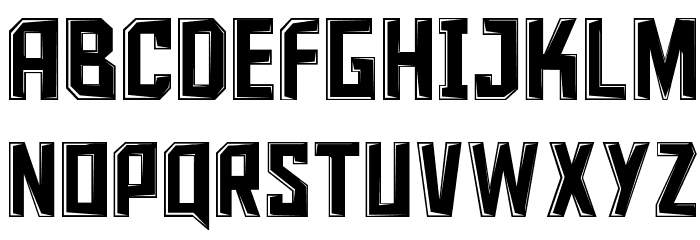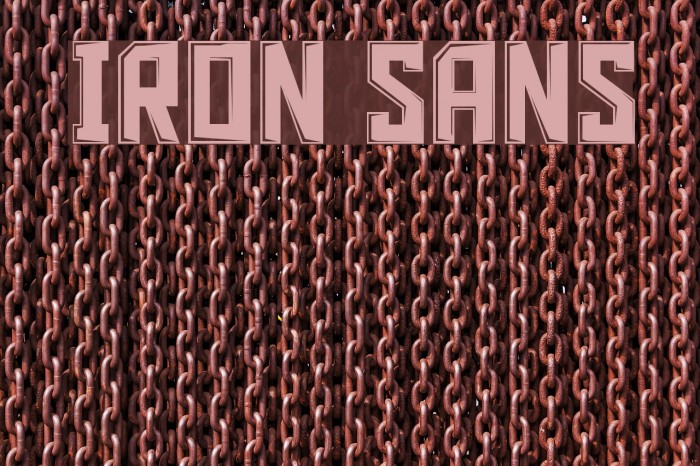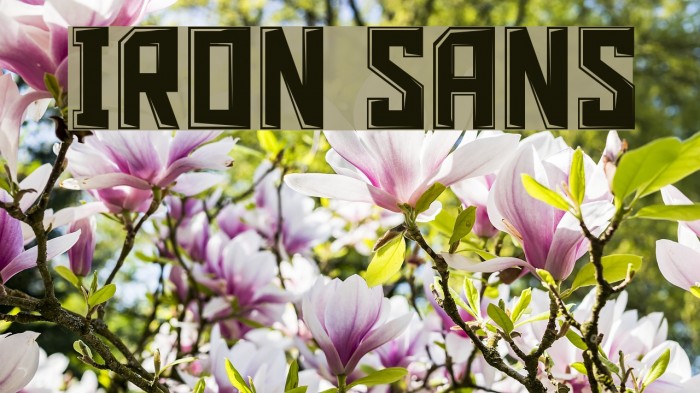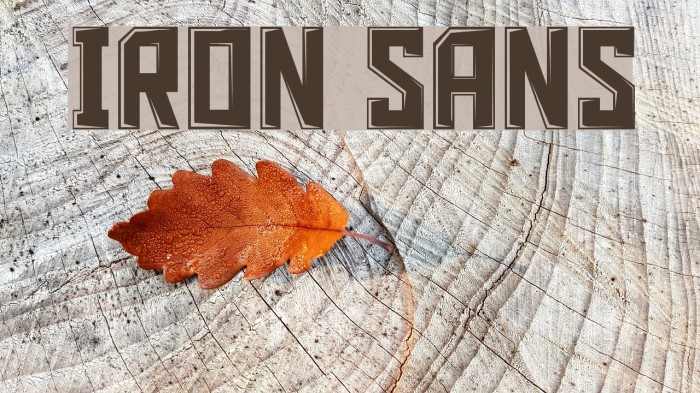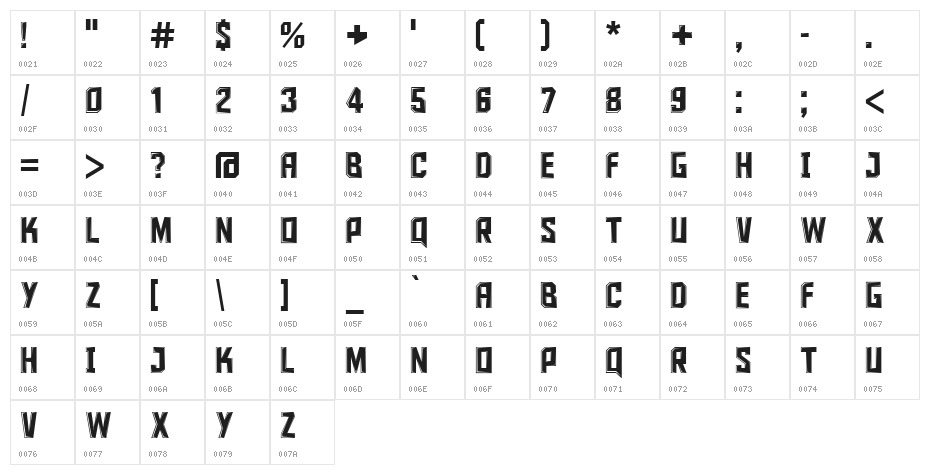
Iron Sans Font
This font features a bold and striking design with a strong geometric structure. The characters are outlined with a thick border, giving them a three-dimensional appearance. The angular and sharp edges contribute to a modern and industrial feel, making it stand out in any design. The uppercase letters are particularly prominent, with a consistent height and width that ensures uniformity. The numbers and special characters maintain the same bold style, ensuring cohesion across all elements. This font is ideal for projects that require a strong visual impact, such as posters, logos, and branding materials.
A bold, geometric font with a three-dimensional, industrial style.
- Proposed Projects: Ideal for posters, logos, branding, and any design requiring a strong visual impact.